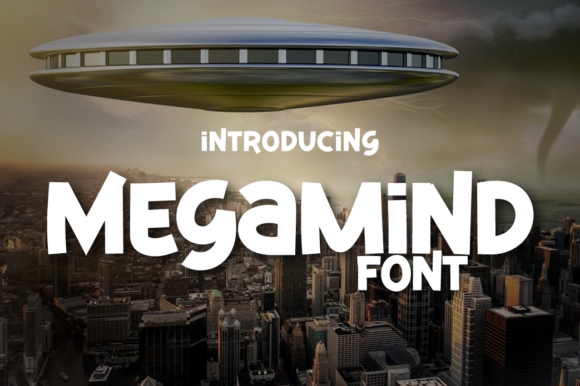
Journey into the realm of magnificent typography with Megamind Font, a display font crafted to captivate the digital world. Its lineage lies in the brilliant minds of twinletter, renowned for their innovative design prowess. Megamind Font stands as a testament to their exceptional artistry, a font family that exudes futuristic charm, stylishness, and unparalleled flexibility.
Immerse yourself in the realm of creativity with Megamind Font. Its rounded lines dance across the screen, creating an aura of intrigue and sophistication. Each stroke and curve is meticulously crafted, conveying a sense of boldness, strength, and unwavering clarity. This font demands attention, its presence commanding and unforgettable.
Unleash your inner visionary with Megamind Font. Its versatile nature adapts effortlessly to a myriad of platforms, from websites to social media and beyond. Create striking headlines that resonate with your audience, craft compelling logos that leave a lasting impression, or design eye-catching posters that ignite imaginations. Megamind Font is your gateway to boundless creativity.
Whether you seek to elevate your personal projects or leave an indelible mark on the digital landscape, Megamind Font is your unwavering companion. Embrace its allure, let your imagination soar, and witness the transformation of your creative endeavors into extraordinary works of art.